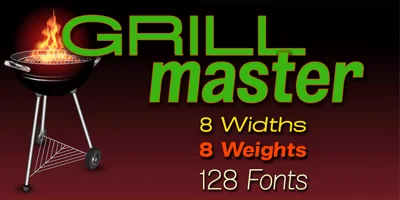
Grillmaster Font
Grillmaster Font is ideal for barbecue restaurant branding, grilling equipment packaging, outdoor cooking competitions, backyard BBQ events, meat smokehouses, grill accessory companies, cooking show materials, and authentic BBQ pitmaster establishments. This sizzling typeface brings grilling expertise and barbecue mastery to any design project celebrating the art of outdoor cooking and the smoky traditions of American barbecue culture.
What makes Grillmaster Font exciting is its perfect embodiment of BBQ expertise combined with outdoor cooking mastery that captures the passionate dedication and skilled craftsmanship required to achieve barbecue perfection and grilling excellence. The bold letterforms feature smoky proportions and grill-tested durability that create an unmistakably authentic appearance. Each character sizzles with BBQ authority, making it ideal for brands that represent grilling mastery, barbecue expertise, and the time-honored traditions of outdoor cooking and meat smoking artistry.
The Grillmaster Font family typically includes regular and bold weights with complete uppercase and lowercase letters, numbers, punctuation marks, and BBQ symbols. Many versions feature additional grilling decorative elements, barbecue motifs, and outdoor cooking symbols that enhance the smoky aesthetic and provide creative flexibility for culinary and outdoor cooking design applications.
Whether you're developing BBQ restaurant brands or creating grilling competition materials, Grillmaster Font offers unmatched culinary authority and barbecue authenticity. This flavorful typography choice transforms ordinary text into sizzling communications that resonate with audiences appreciating barbecue culture and grilling excellence. The font's smoky construction ensures exceptional performance across culinary applications while maintaining its distinctive grillmaster character that makes every design project feel like a backyard barbecue where masters of the grill create smoky perfection with passion and expertise that only comes from years of dedication to the art.